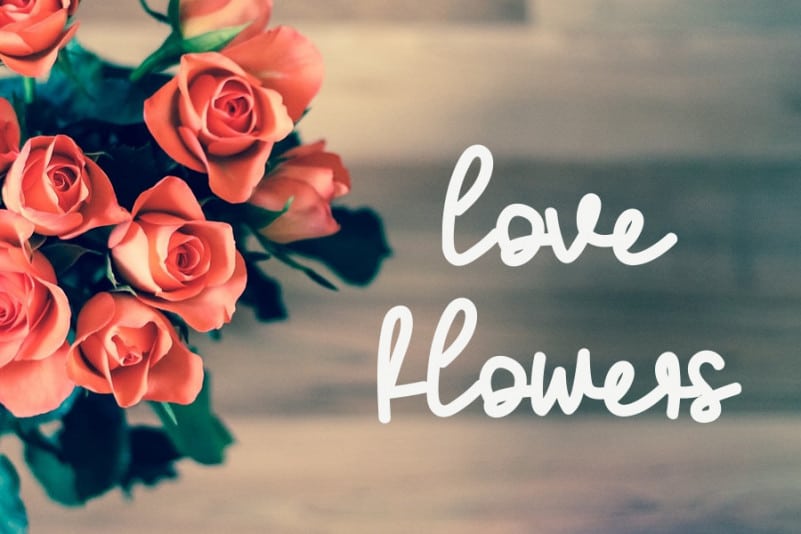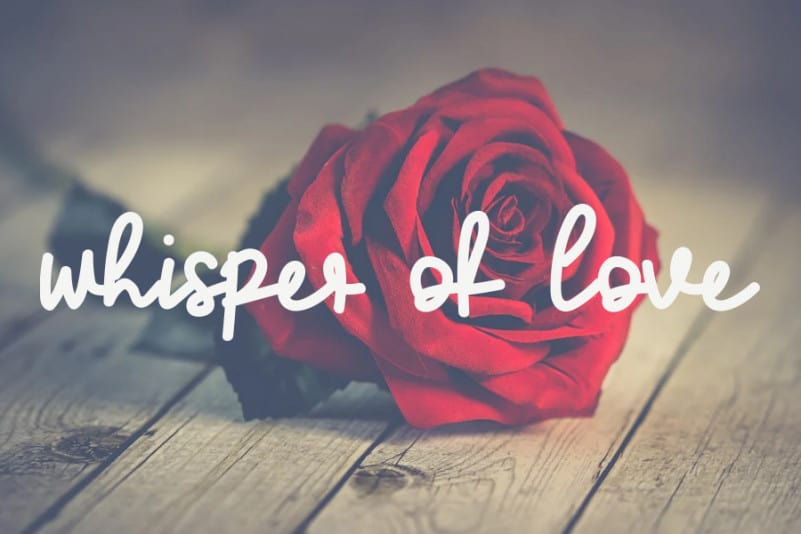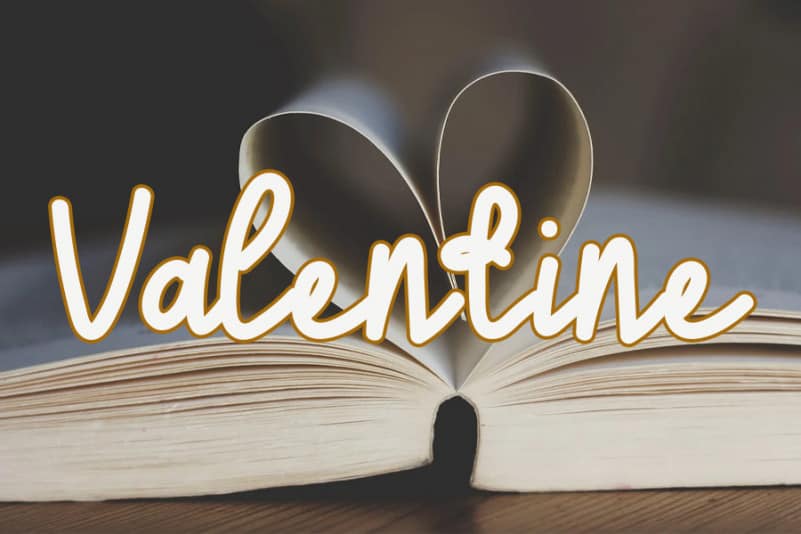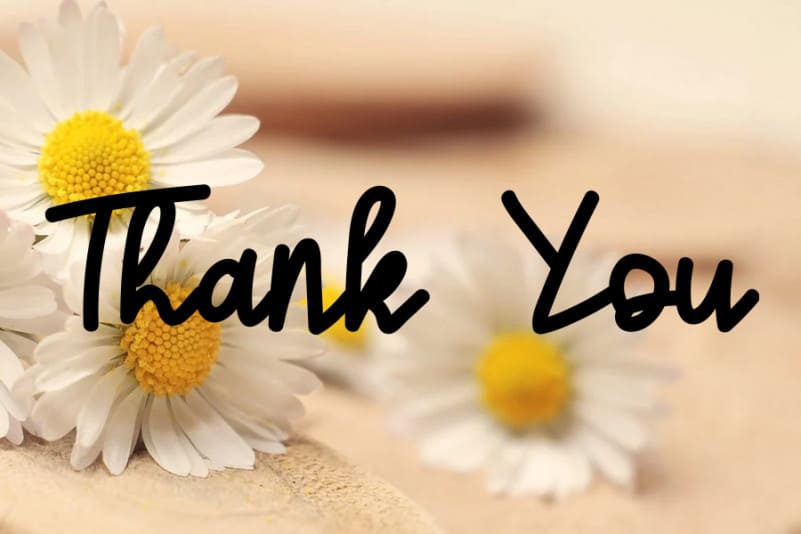
Love Family Handwritten Font
Love Family Handwritten Font is a sweet and friendly handwritten font. Its natural and unique style makes it incredibly fitting to a large pool of designs. The only limit is your imagination!
Love Family Handwritten Font is a very talented product for you to use,
Latest letters that can be used for various products, invitations, wall hangings, weddings, and more.